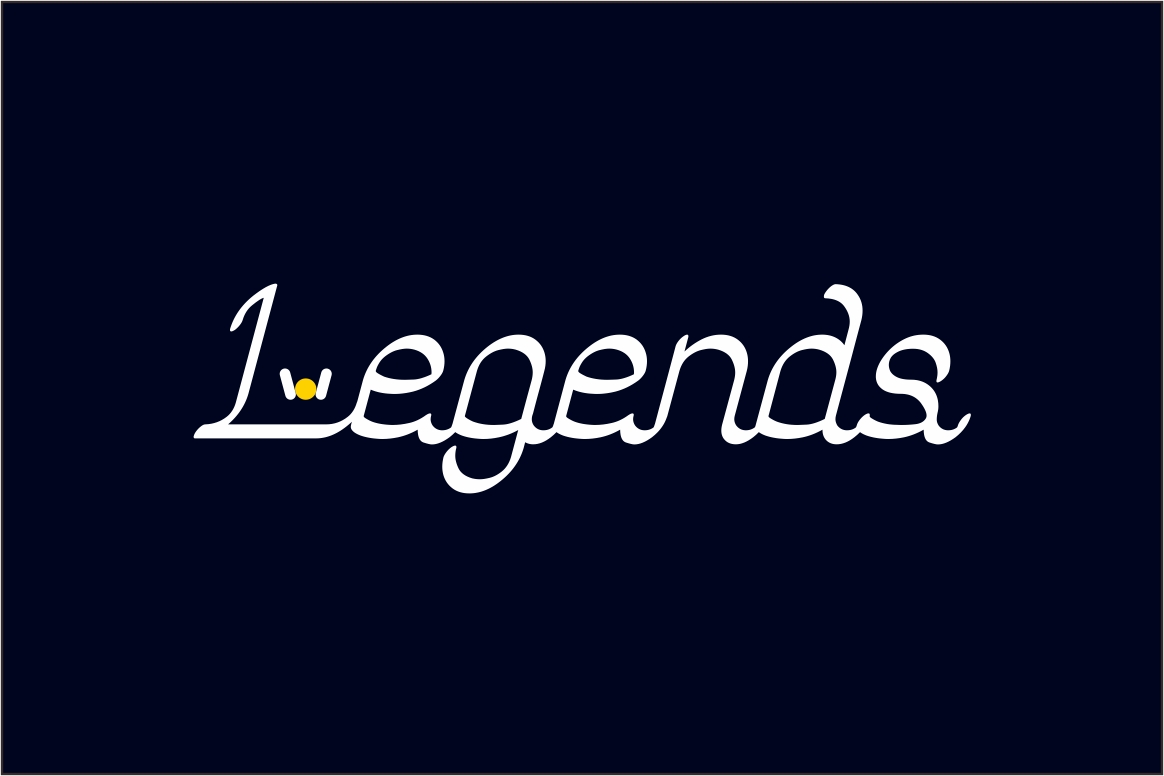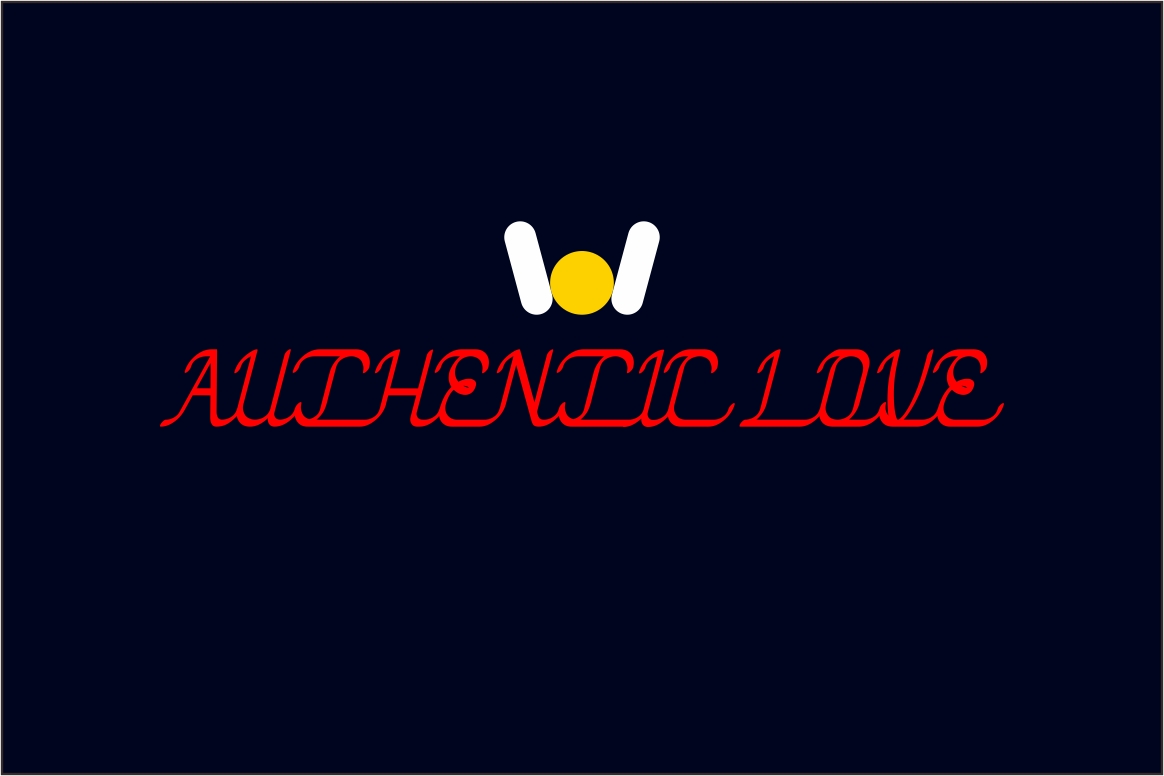
Discover the Charm of Authentic Love Font: Elevate Your Designs with a Touch of Handwritten Elegance
In the world of typography, few fonts manage to capture the essence of human emotion as effectively as the Authentic Love Font. This charming handwritten font is designed to bring an authentic appeal to your creative designs, making it an ideal choice for crafters, designers, and anyone looking to add a personal touch to their projects. With its unique variables and three distinct styles, Authentic Love Font offers unparalleled flexibility, allowing you to maximize your typesetting options and create visually stunning works of art.
The Allure of Authentic Love Font
Authentic Love Font stands out in the digital typography landscape due to its meticulously crafted design. Each letter is a testament to the beauty of handwritten typography, boasting imperfections that mimic the natural flow of human writing. This font doesn’t just convey a message; it tells a story, evoking feelings of warmth, intimacy, and sincerity. Whether you’re working on a romantic project, a branding campaign, or simply looking to add a personal touch to your digital creations, Authentic Love Font is sure to leave a lasting impression.
Key Features of Authentic Love Font
- Handwritten with Love: Authentic Love Font is carefully crafted to mimic the elegance of handwritten typography, offering a unique and personal feel to your designs.
- Variable Styles: The font comes with variables that allow for a range of expressions, enabling you to experiment with different tones and moods to fit your project’s needs.
- Three Distinct Styles: To further enhance your design capabilities, Authentic Love Font is available in three different styles. This variety ensures that you have the perfect version of the font to match your project’s aesthetic, whether you’re aiming for something subtle and understated or bold and expressive.
- Maximized Typesetting Options: The combination of variables and multiple styles gives you incredible flexibility in typesetting. You can effortlessly create dynamic text that captures the essence of your message, making your designs more engaging and effective.
Applications of Authentic Love Font
The versatility of Authentic Love Font makes it suitable for a wide range of applications. Here are a few ideas to get you started:
- Wedding and Event Invitations: Add a romantic touch to your invitations with a font that speaks directly to the heart.
- Branding and Packaging: Stand out in the market with a unique and memorable brand voice, conveyed through the distinctive charm of Authentic Love Font.
- Digital and Print Media: Whether you’re designing a blog, a magazine, or promotional materials, this font can add a layer of warmth and personality to your content.
- DIY Projects and Crafts: For crafters and DIY enthusiasts, Authentic Love Font can be a beautiful addition to homemade cards, scrapbooking, and other creative projects.
Tips for Using Authentic Love Font Effectively
To make the most of Authentic Love Font, consider the following tips:
- Mix and Match Styles: Combine different styles of the font to create visual interest and hierarchy in your designs.
- Play with Variables: Experiment with the font’s variables to adjust the mood and tone of your text, ensuring it aligns with your project’s overall feel.
- Pair with Complementary Fonts: For optimal readability and aesthetic balance, pair Authentic Love Font with a clean, sans-serif font for headings and body text.
Authentic Love Font is more than just a typeface; it’s a tool for designers and crafters to infuse their projects with a sense of authenticity and emotion. Its unique blend of handwritten charm, variable styles, and versatility makes it an invaluable asset in the world of design. By incorporating Authentic Love Font into your creative arsenal, you’ll be well on your way to crafting designs that resonate with your audience on a deeper level. So why settle for ordinary when you can create something truly extraordinary with Authentic Love Font?